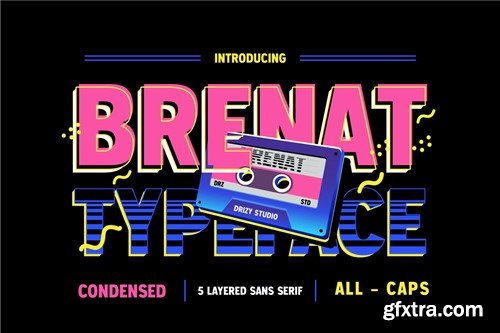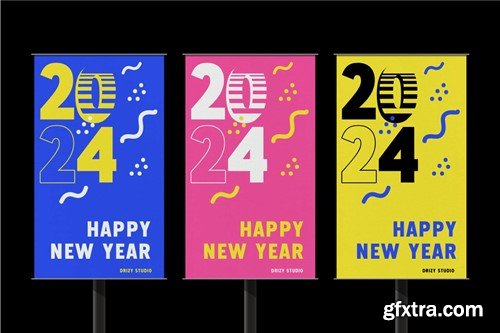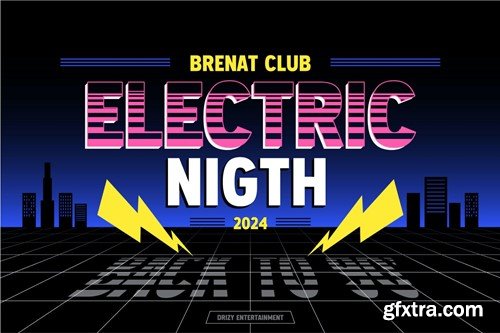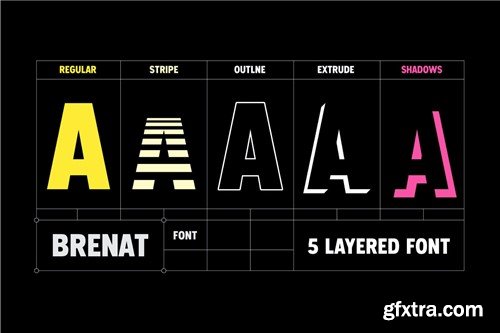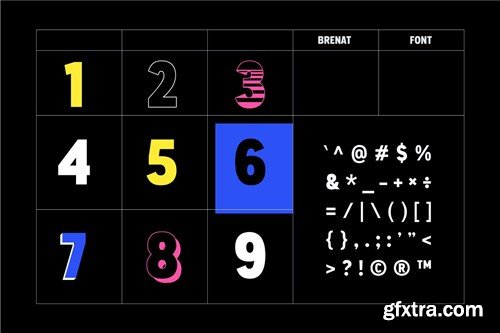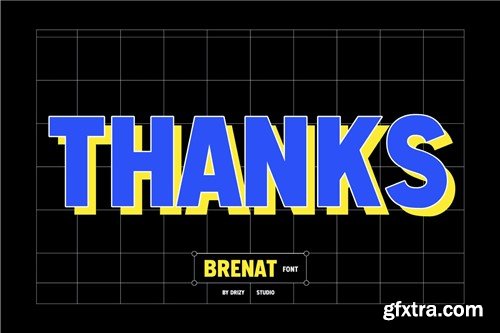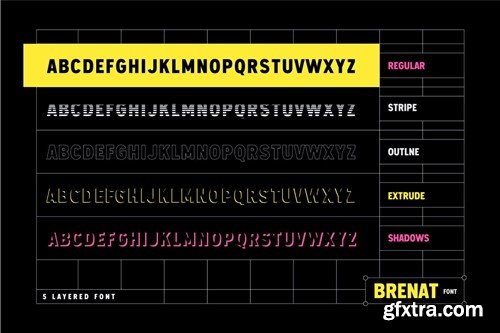
Brenat - Layered Sans Serif Font
Brenat - Layered Sans Serif Font Introducing Brenat, a modern and versatile Layered Sans Serif Font that effortlessly combines sophistication with a touch of contemporary flair. Crafted with precision and attention to detail, Brenat is designed to elevate your creative projects to new heights. Its clean lines, balanced proportions, and unique layering options make it a standout choice for a wide range of applications. Brenat features: Character Set Variable: Regular, Stripes, Outline, Extrude, Shadows Punctuation & Numbers Multilingual Support File Included: OTF & TTF Elevate and explore the design possibilities with this Condensed Font!